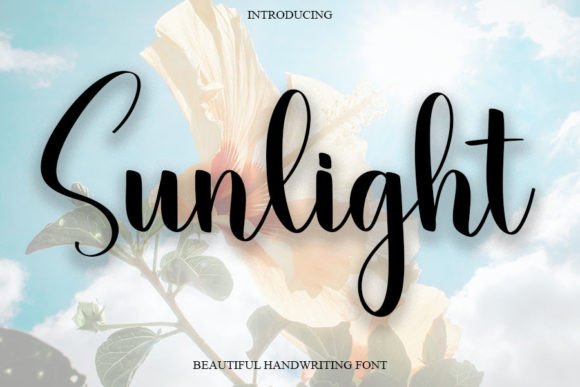
About Sunlight Font
The Sunlight Font Download is a simple and friendly handwritten typeface that brings warmth and creativity to your projects. With its casual strokes and approachable style, this handwritten font is designed to adapt beautifully to both personal and professional designs. Whether you’re working on digital projects, presentations, or greeting cards, Sunlight can instantly brighten your work and add a natural touch.
Unlike more formal typefaces, the Sunlight Font Download keeps things relaxed and charming, making it ideal for creatives who want a human, personal feel in their work. Its balanced look ensures that it remains highly readable, even when used in longer texts.
Features of Sunlight Font
Choosing the Sunlight Font Download means gaining access to a versatile and easy-to-use handwritten font with plenty of features:
Smooth, natural handwritten style with friendly curves
Complete uppercase and lowercase letters
Full set of punctuation and numbers
These features allow Sunlight to be both beginner-friendly and powerful for professional design applications.
Best Uses for Sunlight Font
The Sunlight Font Download is highly adaptable, making it a great choice for countless creative purposes. Some of the most popular uses include:
Crafts & DIY Projects – Adds charm to handmade items, planners, and scrapbooks
Digital Design – Works seamlessly in web graphics, banners, and social media posts
Presentations – Keeps slides visually engaging without losing clarity
Greeting Cards – Adds warmth and friendliness to invitations and personal notes
Branding Projects – Perfect for logos, packaging, and business identities with a friendly edge
Educational Materials – Easy to read, making it suitable for worksheets, posters, or kids’ projects
Its versatility allows designers to use the same font across different mediums without losing consistency.
Why Choose Sunlight Font?
The Sunlight Font Download offers more than just handwritten beauty. It gives your designs personality and friendliness while staying functional. Many handwritten fonts lean too far into being decorative, but Sunlight strikes the perfect balance between style and readability. This balance makes it effective for both print and digital projects.
Adding Sunlight to your font library means having a typeface that feels approachable yet professional. Whether you need it for quick crafts or polished branding, it adapts smoothly to the job.
If you want a handwritten typeface that feels warm, welcoming, and easy to use, the Sunlight Font Download is a fantastic choice. Its simple and friendly design ensures it will become one of your go-to fonts for a wide range of creative needs.
Bring a touch of lightness and charm to your projects today with Sunlight, and see how this approachable handwritten font can elevate your designs with ease.